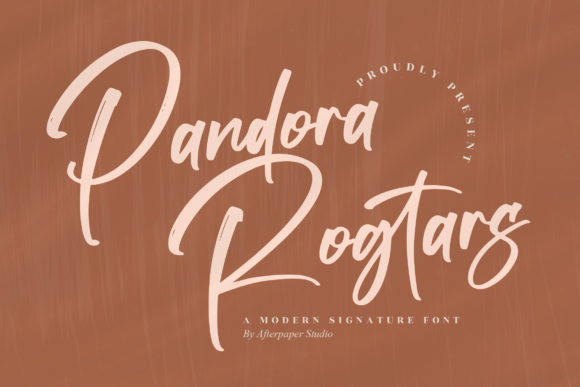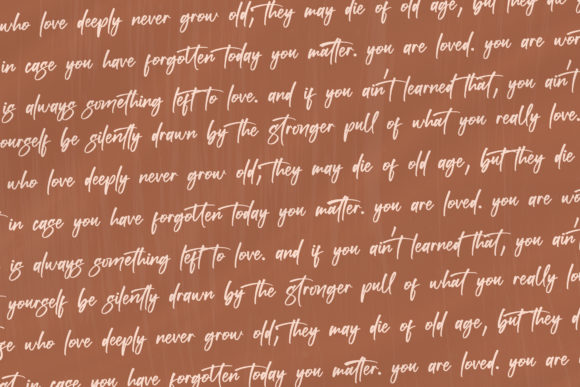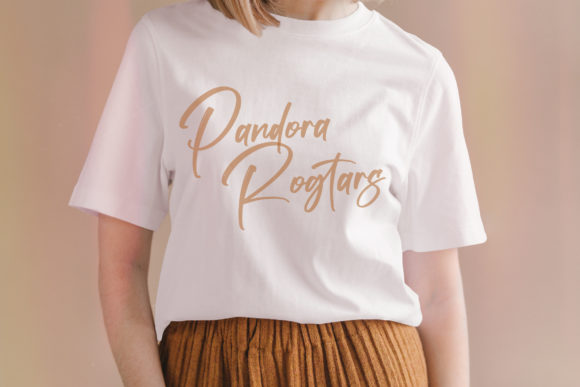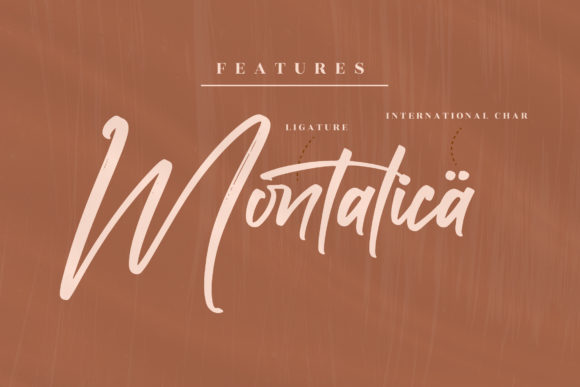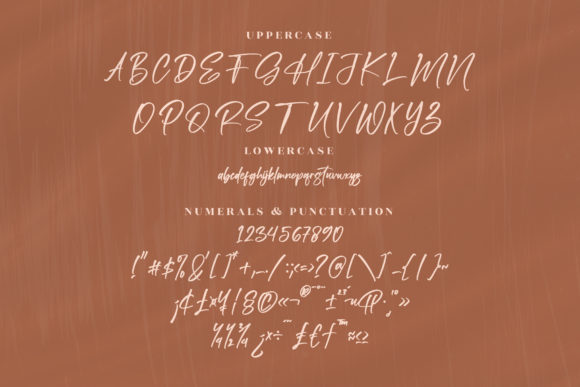
About Pandora Rogtars Font
Pandora Rogtars is a beautiful script font. It is suitable for any projects such as: logos, branding projects, invitation cards, greeting cards, label, photography, watermark, special events, and all your other lovely projects that need a stylish vibe. This font is PUA encoded which means you can access all of the glyphs and swashes with ease!